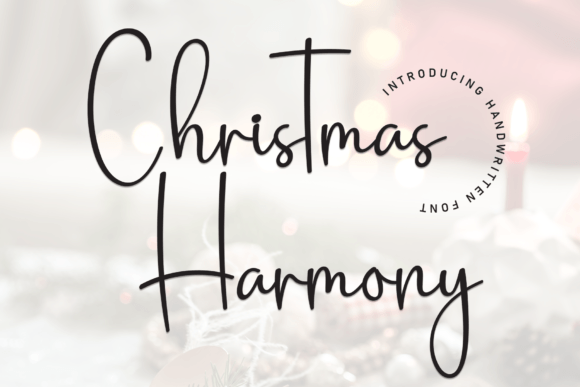
Introducing Christmas Harmony Font, a captivating and expressive script font created by the talented William Jhordy. With its sweet and friendly handwritten style, this font is guaranteed to add a delightful touch to your designs. Whether you're working on wedding invitations, greeting cards, or any other project that calls for a playful and fun vibe, Christmas Harmony is the perfect choice.
Unleash your creativity and let Christmas Harmony Font bring your designs to life. This font exudes an air of joy and warmth, making it an excellent choice for spreading holiday cheer or injecting a touch of whimsy into your work. Its versatility knows no bounds, allowing you to explore a multitude of design possibilities.
Crafted with careful attention to detail, Christmas Harmony Font offers a seamless blend of elegance and playfulness. Its hand-drawn appearance adds a personal and authentic feel to your text, instantly capturing attention and leaving a lasting impression on your audience.
With its keyword "Font For Fashion Design," Christmas Harmony Font holds a special place in the hearts of fashion enthusiasts. Elevate your fashion projects with this font's unique and eye-catching style, whether it's for a clothing brand logo, a trendy fashion blog, or even a stylish social media campaign.
One of the greatest strengths of Christmas Harmony Font lies in its ability to evoke emotions. This font has the power to instantly transport your audience to a cozy winter wonderland, where they can feel the joy and excitement of the holiday season. Embrace the magic and let Christmas Harmony Font become the voice of your designs.